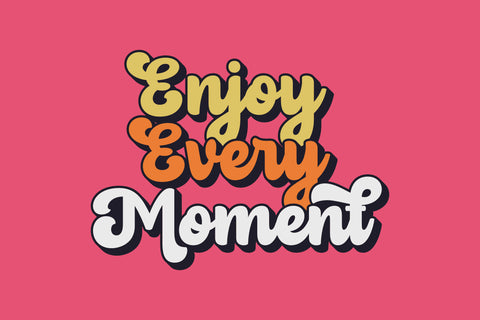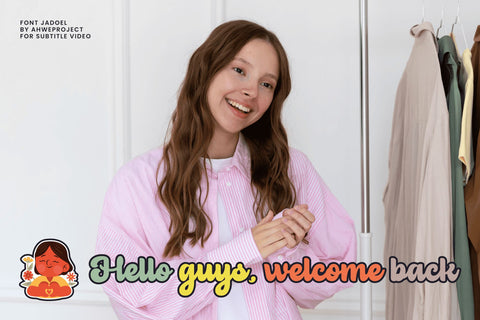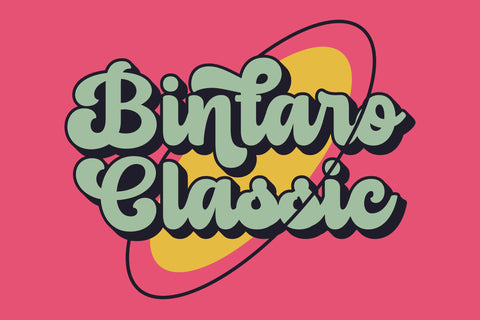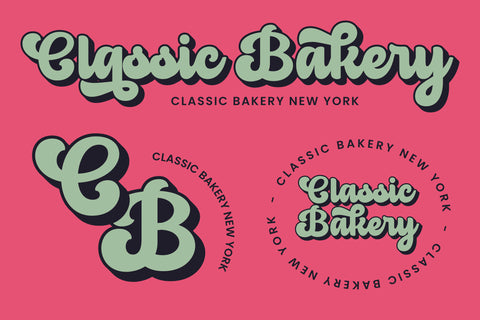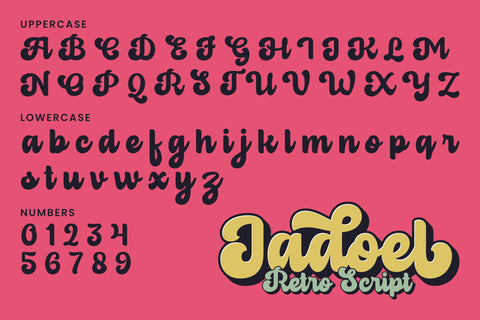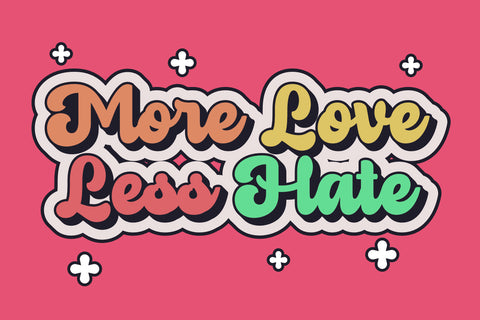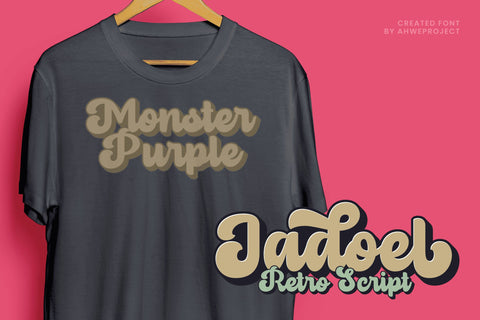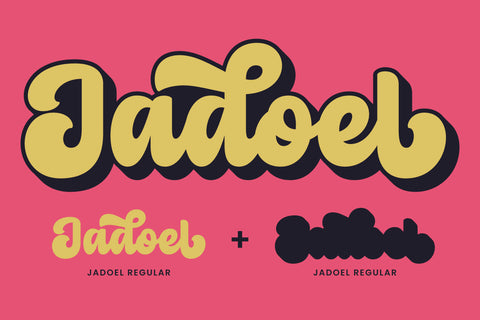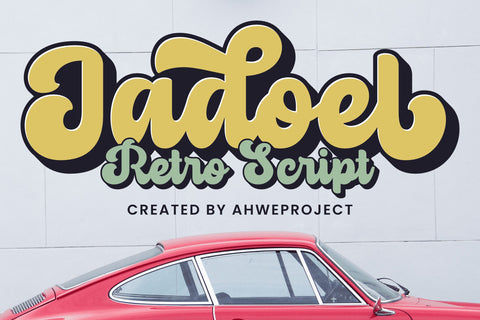
Jadoel
Brimming with charm and nostalgia, Jadoel is a retro-inspired script display font meticulously crafted to elevate your designs. It seamlessly blends into your vintage-themed posters, decals, clothing articles, and social media graphics, adding a dash of old-world charisma that never ceases to captivate your viewers. Boasting PUA encoding, Jadoel provides effortless access to all its glyphs and swashes, making your design process as smooth as possible. Let Jadoel bring your creative visions to life with its delightfully playful character.